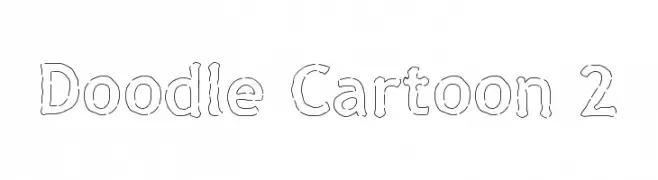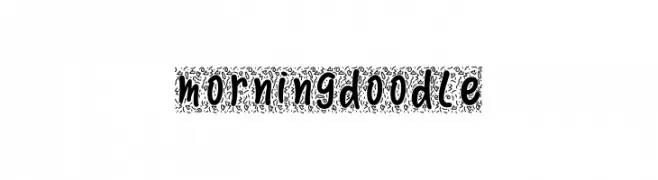
( imagex - www.imagex-fonts.com )
Hand-drawn floral doodle font with playful, decorative style.
( imagex - www.imagex-fonts.com )
A playful, hand-drawn collection of romantic speech bubbles and doodles.
( imagex - www.imagex-fonts.com )
Hand-drawn, space-themed decorative font with playful doodles.
( imagex - www.imagex-fonts.com )
A playful collection of festive Christmas-themed doodles in black and white.
( pixopop - Ali Sabet - www.pixopop.com )
Hand-drawn decorative font with cartoon characters and doodles.
( Anke-Art - www.anke-art.de/ )
A playful, sketchy font with a hand-drawn, doodle-like style.
( CROLrene )
A playful, decorative font with intricate patterns and doodles.
( Katz Fontz - katzfonts.50megs.com/kg.html )
A playful, hand-drawn font with letters in doodled squares and pencil accents.
( Fonts by Bagas Ardiatma )
A playful, hand-drawn font with a textured, doodle-like appearance.
( Fonts by Marcus Melton Design )
A playful, doodle-inspired font with unique, hand-drawn characters.
A playful set of doodle-style icons with a hand-drawn, whimsical feel.
A playful, hand-drawn font with a quirky, doodle-like style.
( Fonts by AZ Std )
Hand-drawn, marker-style decorative doodle font.
( Fonts by Digi Temply )
Whimsical hand-drawn doodle extras with a playful, sketchy style.
( Fonts by Maria Osborn )
A playful, hand-drawn font with a boxed, doodle-like appearance.
( Fonts by FontKawaiiCo )
A bold, decorative font with intricate doodle patterns inside each letter.
( Fonts by Jonathan S. Harris )
A playful, wavy outline font with a hand-drawn, doodle-like appearance.
Whimsical doodle font with playful elements.
Hand-drawn decorative doodle icons and borders with a whimsical, playful style.
Hand-drawn Christmas doodle icon set.
A playful, hand-drawn font with a casual, doodle-like style.
A playful, hand-drawn font with romantic doodles and heart motifs.
Hand-drawn Halloween doodle font with cute, playful icons.
A playful, hand-drawn doodle font with charming icons and a casual style.
Hand-drawn doodle icon set with a casual, whimsical style.
Hand-drawn, whimsical doodle symbol font.
A whimsical, hand-drawn font with playful doodles and irregular strokes.
( Fonts by WC Fonts - Atypeek - Christophe Féray - Personal-use only. For commercial use please contact owner. )
Hand-drawn doodle and graffiti-inspired decorative icon font.
( Fonts by Woodcutter - woodcutter Manero - Personal-use only. For commercial use please contact owner. )
Hand-drawn Christmas doodle icon set.
( Fonts by Xerographer Fonts - Max Infeld - Personal-use only. For commercial use please contact owner. )
A bold, hand-drawn font with a textured, doodle-like pattern.
( Fonts by fontsandfashion - Personal-use only. For commercial use please contact owner. )
A playful, school-themed handwritten font with doodle-like illustrations.
A playful, hand-drawn font with intricate patterns and doodles.
A playful, hand-drawn font with a doodle-like, textured style.